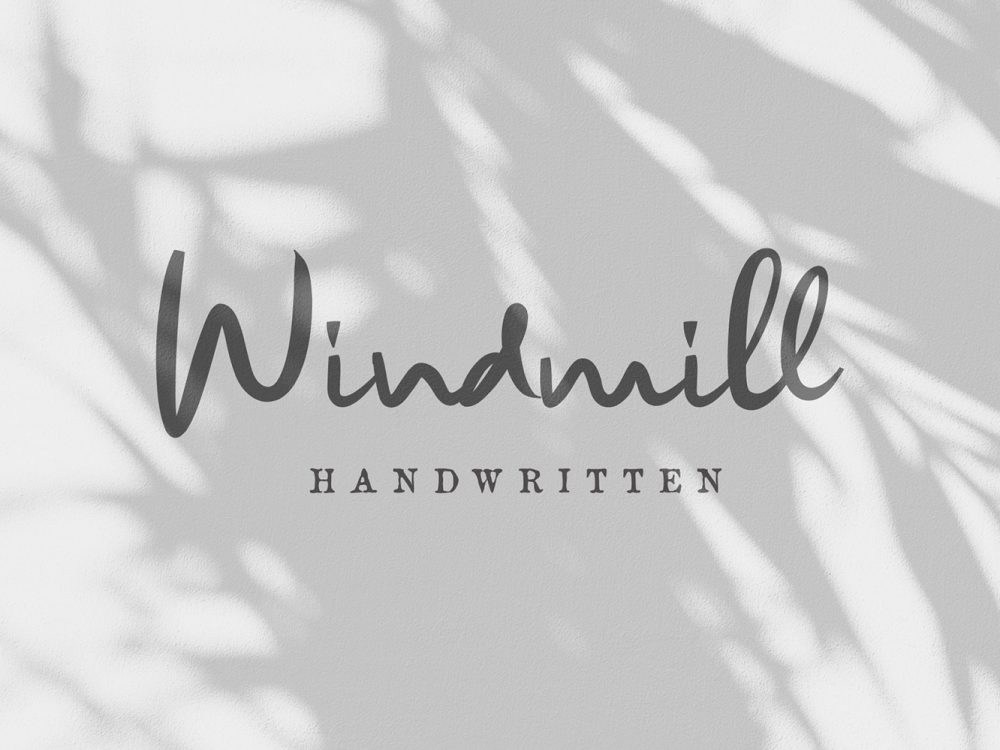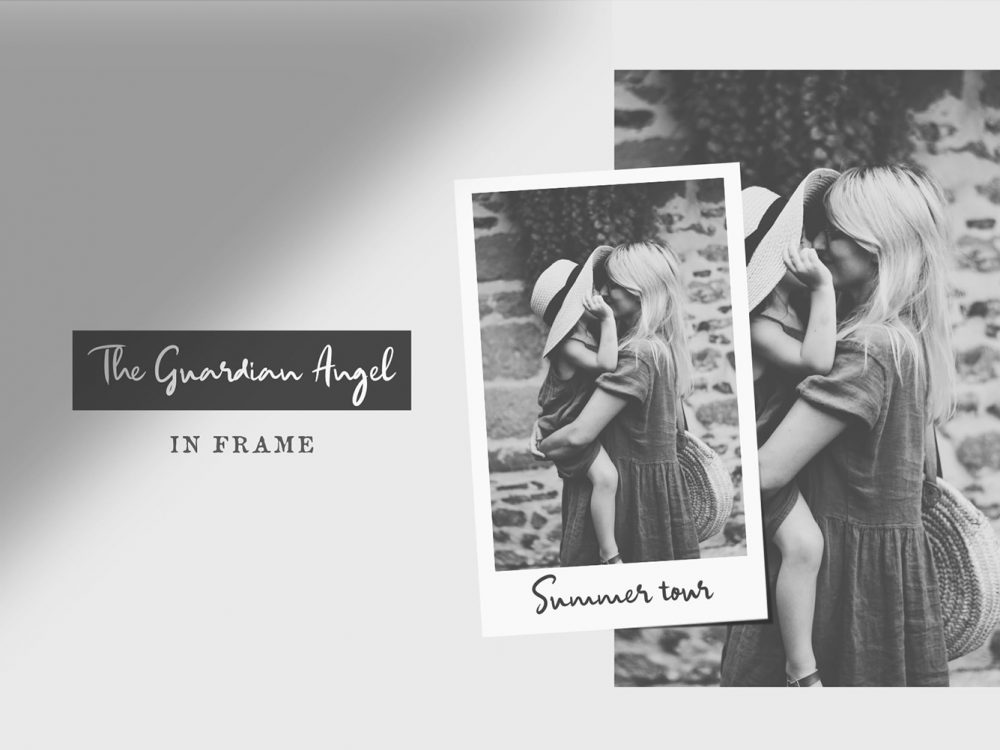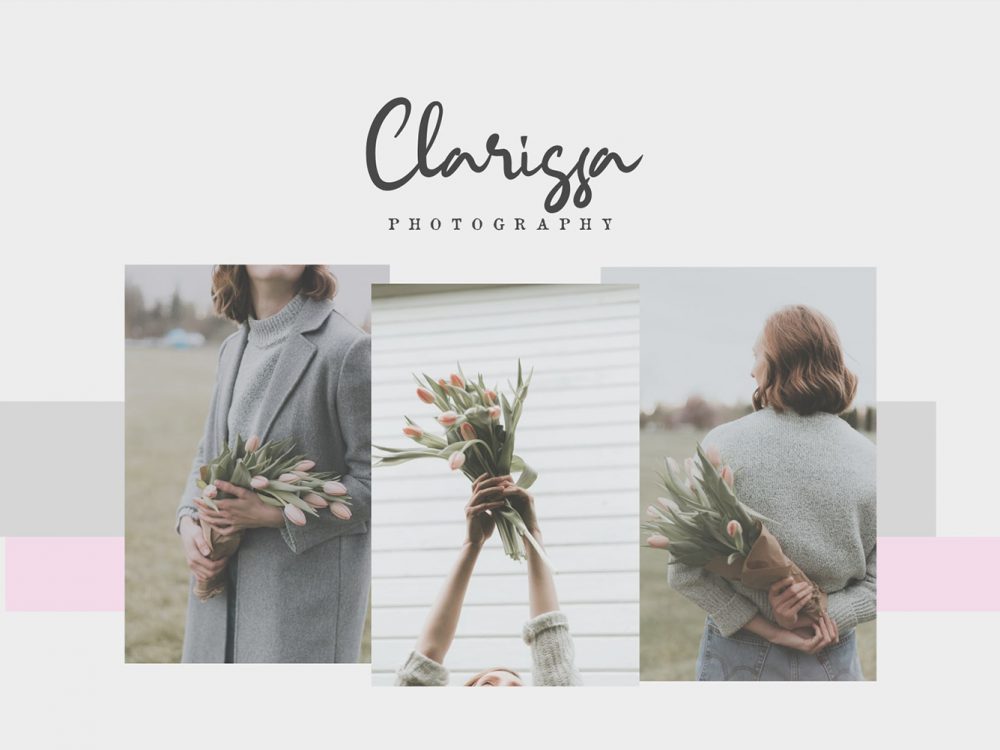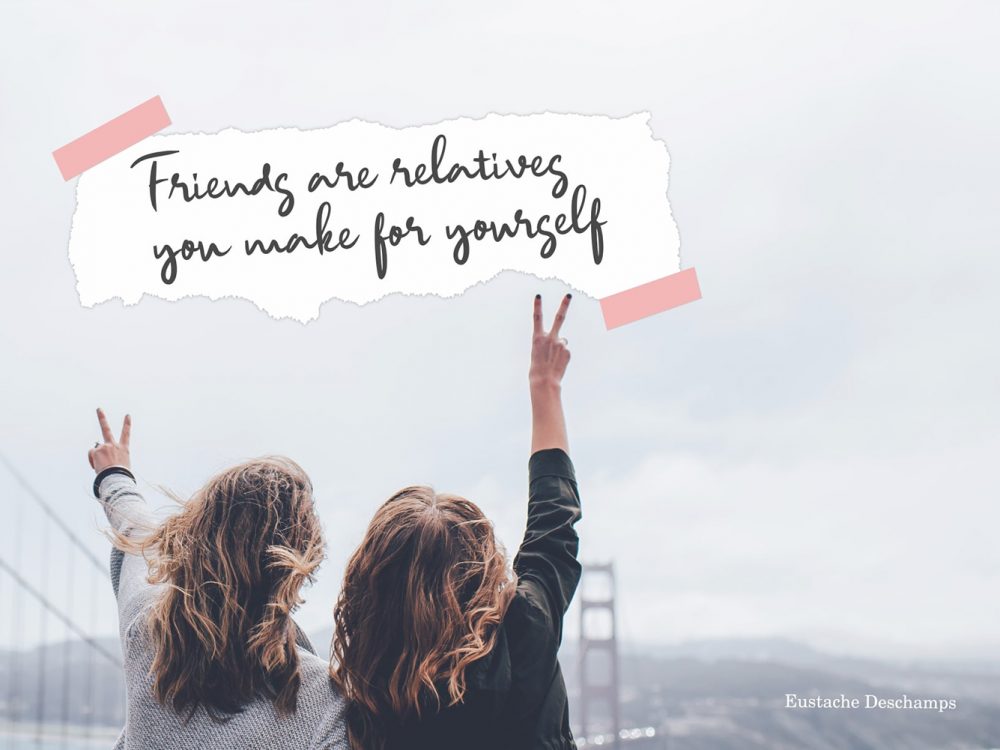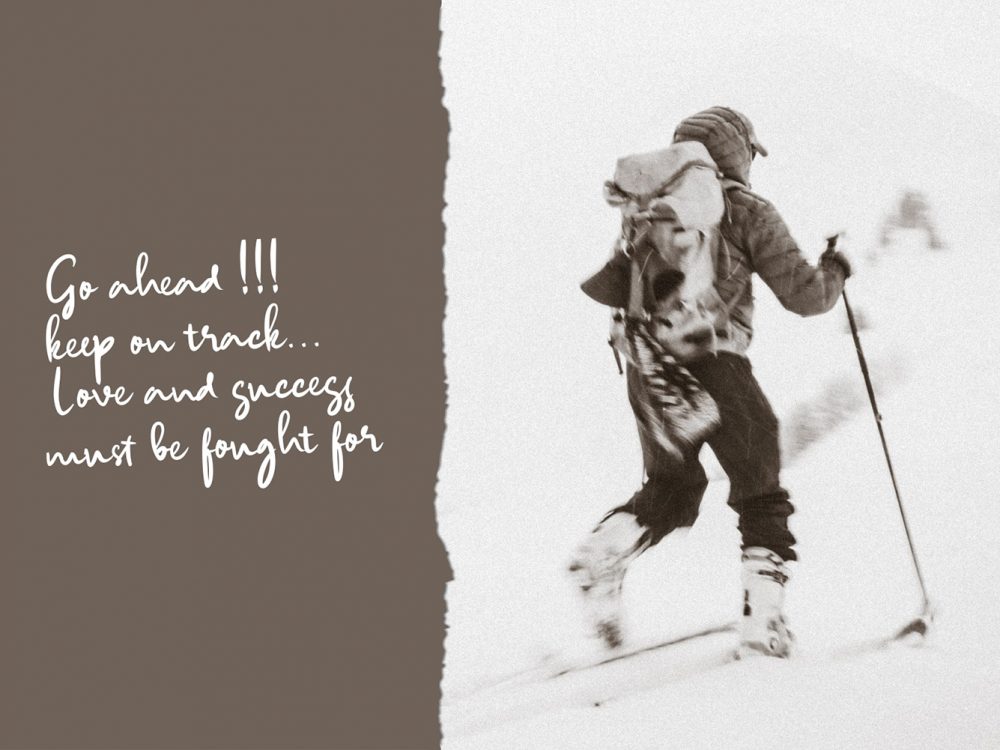
Windmill Free Font
Windmill Free Font is a scripted handwritten font that features a calligraphic style. The stroke is simple yet but perfects to add to the perfection of your design. This font is very suitable for creating various design projects. Use this font to create memorable posters, wedding invitations, cards, branding, flyers, and more. Improve the quality and increase the popularity of your design projects by using this font. If you like it don’t forget to check out the full version.